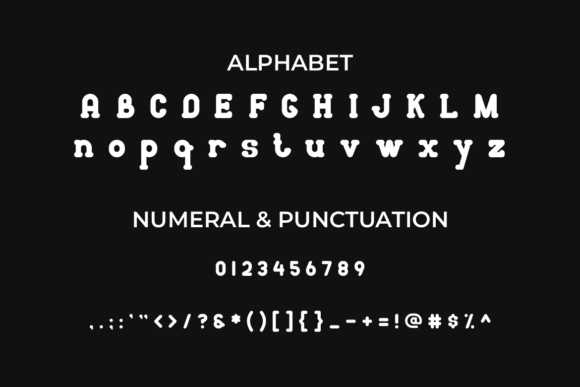
Introduction to Diampiri Font
Have you ever stumbled upon a design element that takes your creative project to the next level? For me, it was the moment I discovered the Diampiri Font. Its modern and authentic display style had an instant impact on my design, and I couldn’t help but wonder how I ever managed without it. As a designer, I know the importance of having high-quality design resources at our fingertips, and that’s exactly what the Diampiri Font offers.
With its sleek and sophisticated design, the Diampiri Font is a valuable addition to any designer’s library. Whether you’re working on a free download project or a paid commission, this font has the potential to elevate your creation and leave a lasting impression on your audience. And the best part? You can use it with a transparent background, giving you complete creative freedom.
Key Features of Diampiri Font
- High-quality design resource ideal for creative projects requiring a unique touch.
- Features a transparent background, making it easy to integrate into any design.
- Includes a range of styles and weights, allowing for versatile use in various design contexts.
- Supports resolutions up to 300 DPI, ensuring crisp and clear display on high-resolution screens.
- Part of a comprehensive font family, offering a cohesive look and feel for branding and design projects.
- Designed to be highly legible and visually appealing, making it an excellent choice for digital and print media.
Honest Review: Diampiri Font
I recently stumbled upon the Diampiri Font, and I’m excited to share my thoughts with fellow designers. As a go-to design resource, I appreciate fonts that bring a unique touch to my creative projects.
- Unique style: The Diampiri Font boasts an exclusive, hand-drawn aesthetic that sets it apart from more generic fonts.
- Limited font family: The Diampiri Font is a single font, which may not offer the same versatility as more comprehensive font families.
- No bold or italic variants: While the font’s unique style is a strength, it would be beneficial to have additional weight options for emphasis.
Overall, the Diampiri Font is a high-quality design resource that can add a touch of personality to your creative projects. While it may have some limitations, its unique style and free availability make it a valuable addition to any designer’s toolkit.
How to Use Diampiri Font
The Diampiri Font is a high-quality design resource perfect for any creative project. With its unique style and versatility, it’s an ideal addition to any design collection.
Tips for Getting the Most Out of Diampiri Font
To get the most out of the Diampiri Font, use it in combination with other design elements, such as images or graphics. Experiment with different font sizes, colors, and styles to create a unique look.
The Diampiri Font is ideal for use in various creative projects, including: